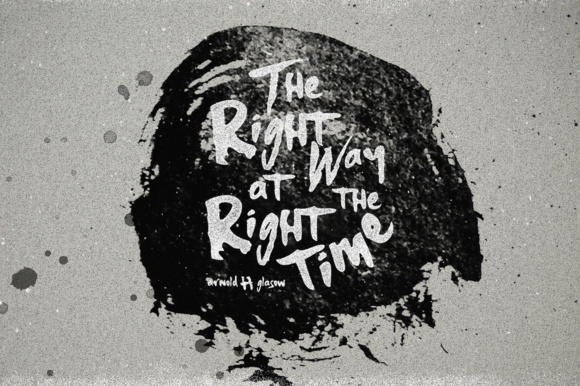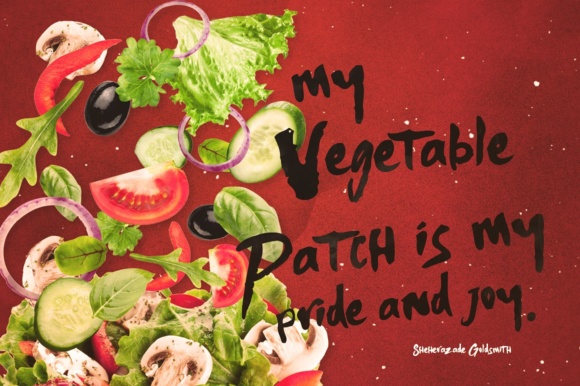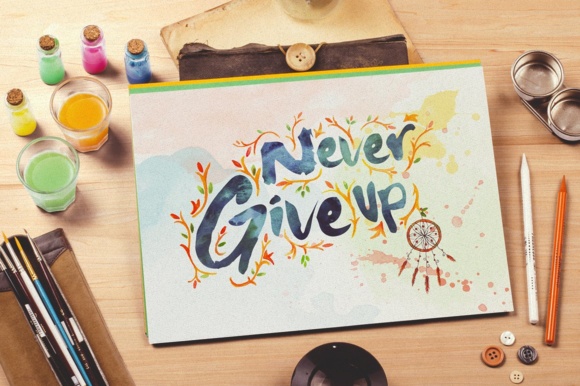
Beats Font – Free Download
Introduction to Beats Font
The Beats was inspired by cutting the cans of coke.
| 👤 Author | maghrib |
It’s specially created for lettering, long texts, badges, logos, etc .
Key Features of Beats Font
Why Choose Beats Font?
Beats Font offers exceptional quality and versatility, making it a valuable addition to your design toolkit. Whether you’re creating for personal projects or commercial use, Beats Font delivers professional results.